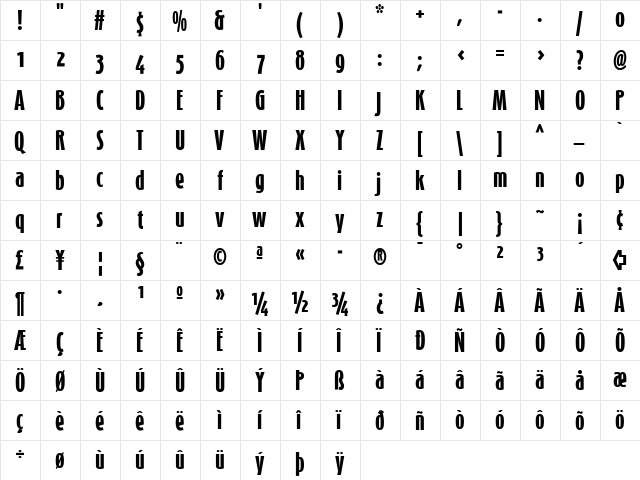
Schmalhans ExtraBold
Design Context for Schmalhans Typeface
Schmalhans is a composed and adaptable typeface that performs quietly and consistently across a wide range of design contexts. The heavy weight commands attention and anchors typographic hierarchies.
Pro Tip: Pair Schmalhans with a font of contrasting weight or personality to build a more expressive typographic hierarchy.